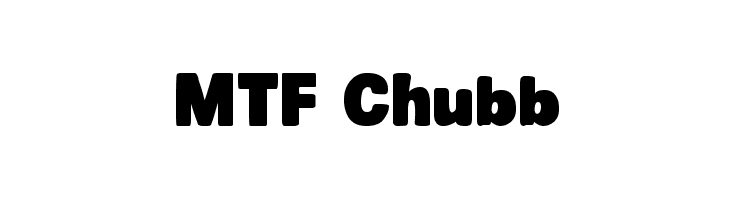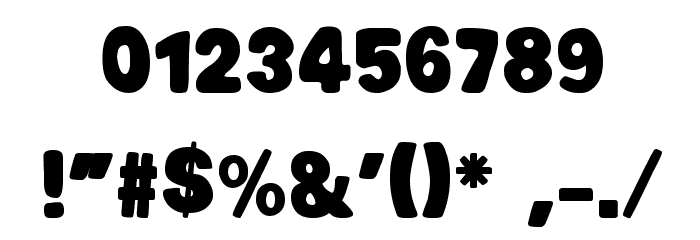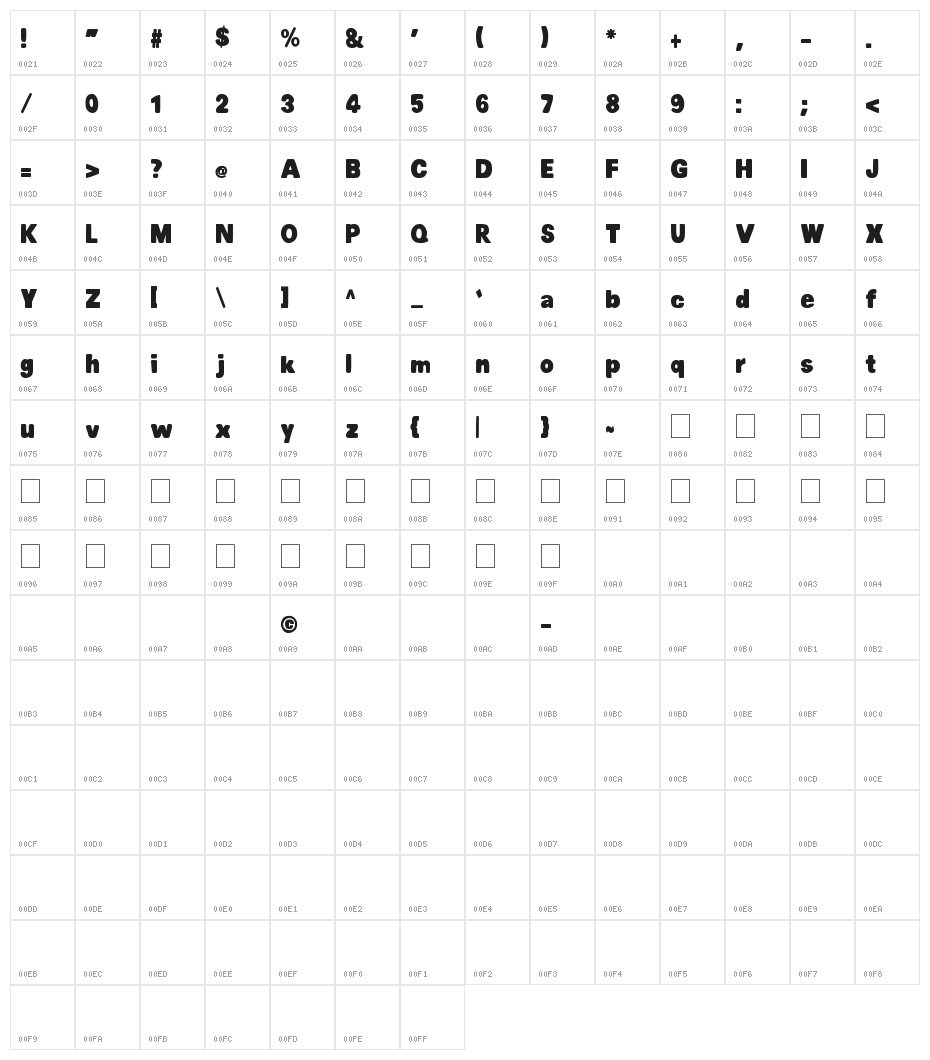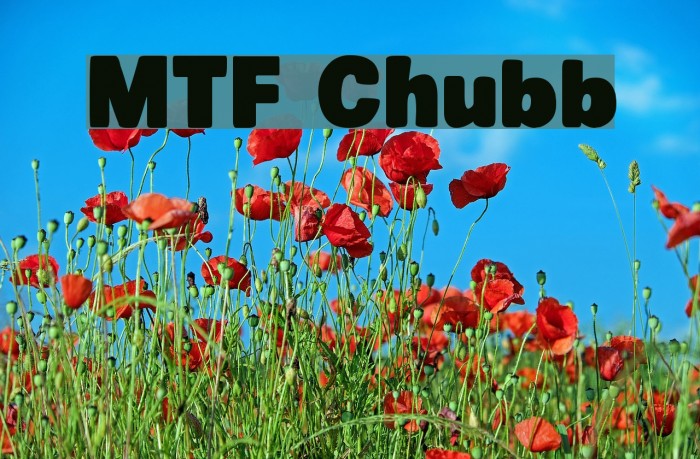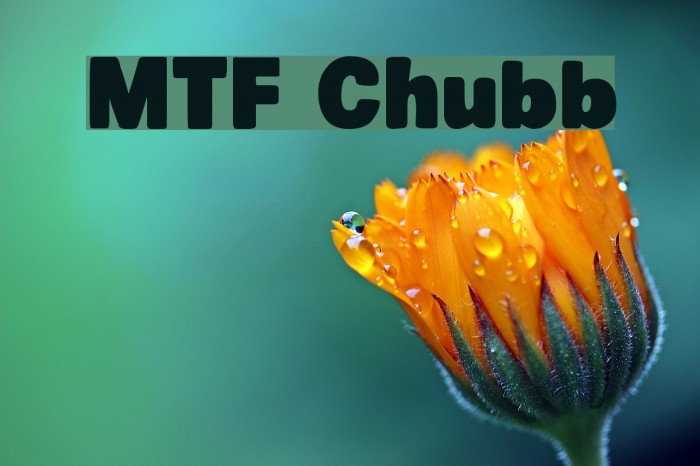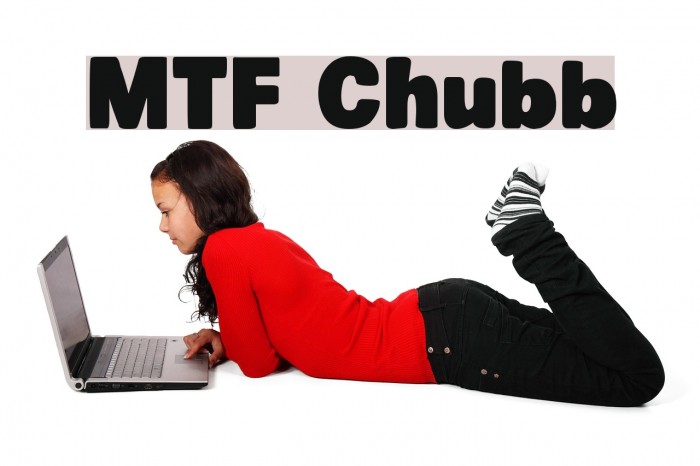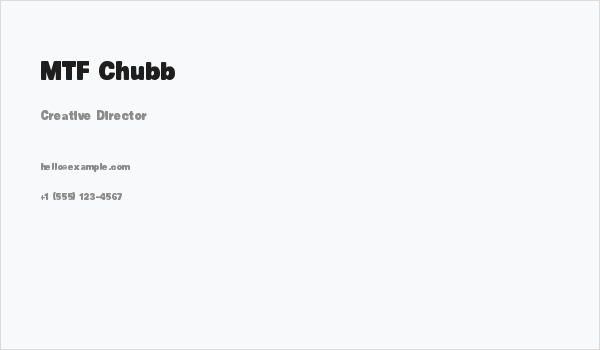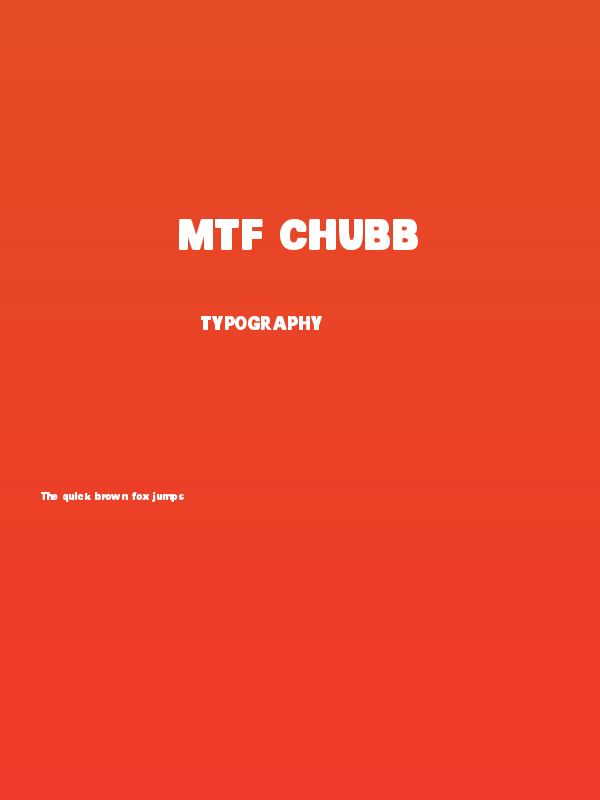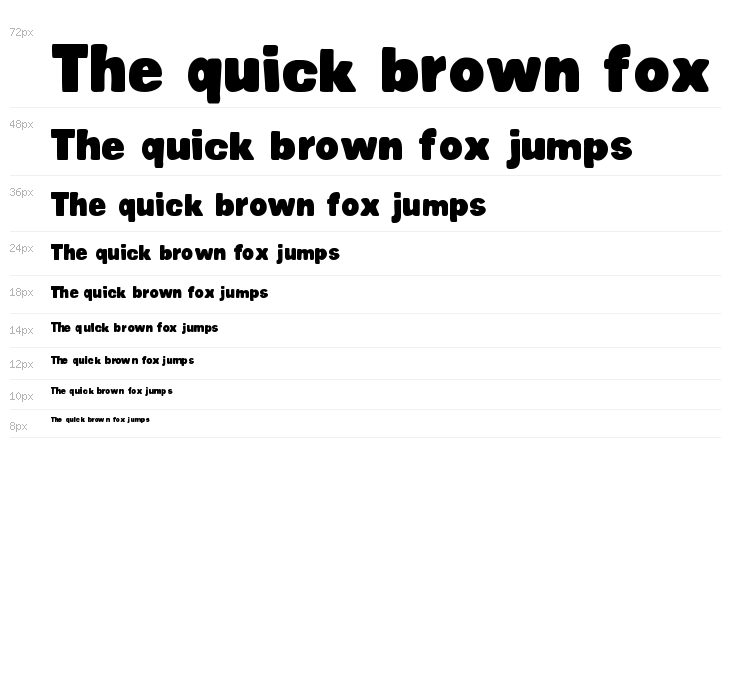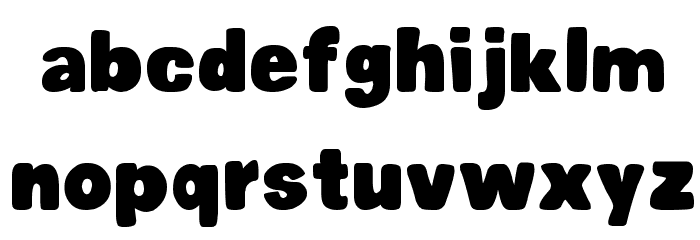
MTF Chubb Font
MTF Chubb Description
This font features bold, rounded characters that exude a playful and friendly vibe. The letters are thick and have a uniform stroke width, contributing to a strong and impactful appearance. The rounded edges soften the overall look, making it approachable and suitable for casual or informal contexts. The numerals and special characters maintain the same boldness and rounded style, ensuring consistency across all glyphs. This font is highly legible and stands out due to its substantial weight and rounded forms.
| Proposed Projects | Ideal for children's books, playful branding, casual posters, and social media graphics. |